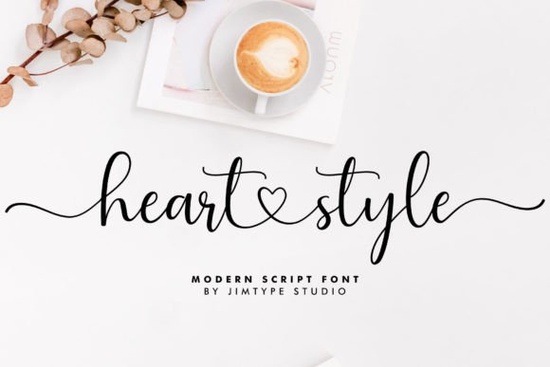
If you’re searching for a script font that balances elegance with a romantic feel, the Heart Style Font delivers exactly that. Designed for wedding invitations, heartfelt messages, and logo branding, this typeface brings a refined hand-lettered look to your projects without feeling overly formal. Whether you’re a print-on-demand seller, a small business owner, or a hobbyist crafter, understanding how to use this font effectively can help you create designs that feel personal and polished.
What makes Heart Style Font different from standard cursive fonts?
Many script fonts lean either toward casual handwriting or rigid calligraphy. Heart Style Font sits in the middle it has graceful loops and smooth connections, but stays readable even at smaller sizes. The letters feature subtle variations in thickness, giving your text a natural, ink-like flow. This makes it a solid choice for wedding stationery, save-the-dates, and branding materials where you want to convey warmth and connection without clutter.
It also supports multiple uses beyond typical invitations. Because the font pairs well with simple sans-serif typefaces, you can use it for logo wordmarks, social media graphics, or product labels. The design avoids extreme flourishes, so it works on both digital screens and printed items like mugs, tote bags, or greeting cards.
Which design projects can use Heart Style Font?
Wedding and event invitations
The romantic look of Heart Style Font naturally fits wedding invites, RSVP cards, and ceremony programs. Combine it with a clean serif font for body text to keep the layout balanced. If you want a softer feel, try pairing it with pastel backgrounds or floral illustrations.
Branding for love‑focused businesses
If you run a bakery, a florist, or a bridal shop, this font can help your logo feel more personal. Use it for your business name on packaging, website headers, or marketing materials. Because the font is script but not overly fancy, it still looks professional on business cards and signage.
Print‑on‑demand and handmade products
POD sellers can use Heart Style Font for t‑shirt quotes, wall art prints, or gift tags. The font works well with short phrases like “Love you more” or “Family is everything.” For longer quotes, adjust the tracking (letter spacing) slightly to improve readability.
Social media and digital content
Create engaging Instagram posts or Pinterest pins with Heart Style Font overlaid on soft, blurred backgrounds. Because it’s a script font with legible characters, it works for call‑to‑action buttons or short motivational quotes in stories.
How to pair Heart Style Font with other typefaces
Pairing a script font with a contrasting style helps your design feel cohesive. For wedding invitations, combine Heart Style Font (used for the couple’s names) with a simple sans‑serif like Montserrat for the date and location. For branding, use the script for the main wordmark and a geometric sans for taglines or contact info.
You can also layer the font with itself use a bold weight for headings and a lighter weight for details. This creates visual hierarchy without adding another font. For extra texture, overlay the text on a subtle watercolor or marble background.
A quick checklist for using Heart Style Font
- Test readability at your intended size script fonts can get muddy below 12pt.
- Adjust letter spacing (tracking) if you have long strings of text; add +10 to +30 for better legibility.
- Choose a background that contrasts well. Avoid white text on light pastels.
- Limit usage to headlines or short phrases. Use a simpler font for body copy.
- Check kerning pairs like “Ly” or “Vo” sometimes scripts need manual tweaking.
- Pair with a neutral color palette rose gold, blush, and ivory keep the romantic feel without overwhelming the font.